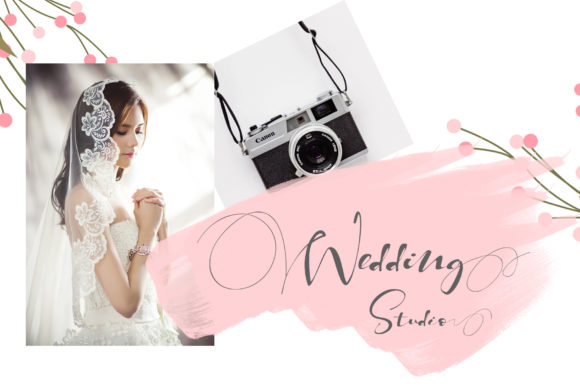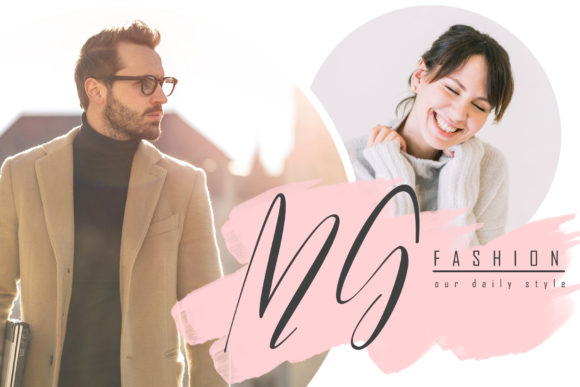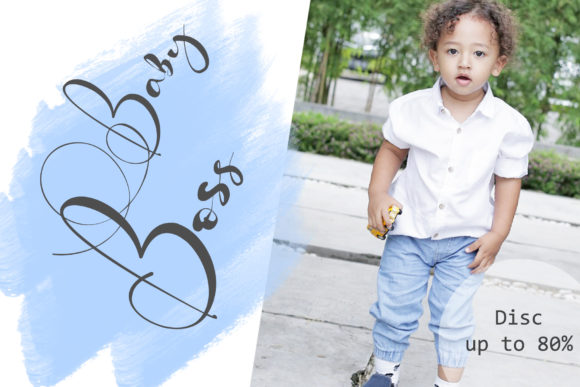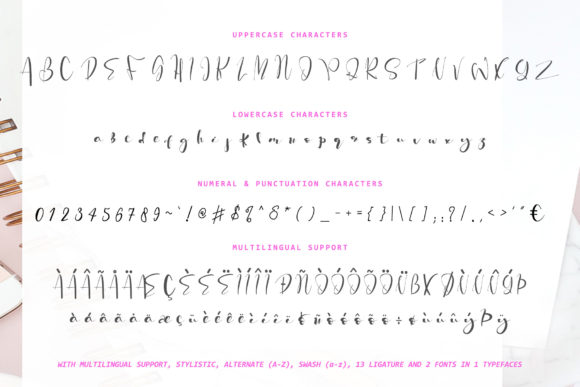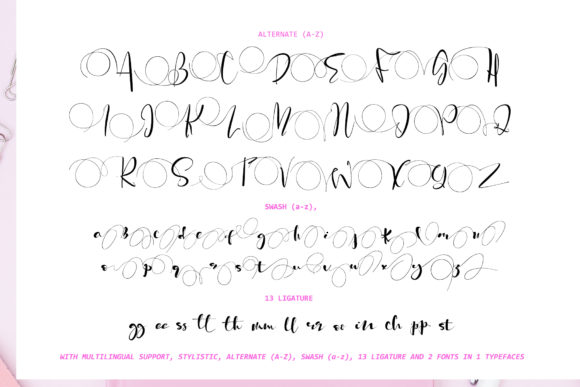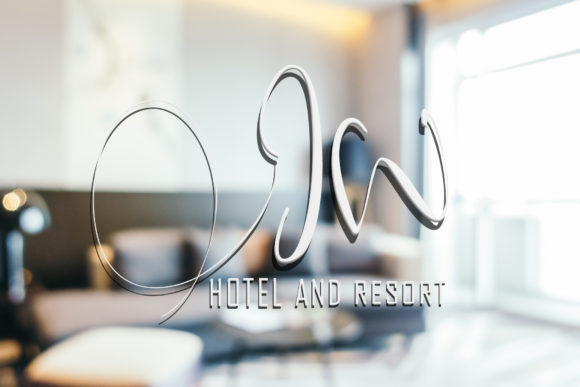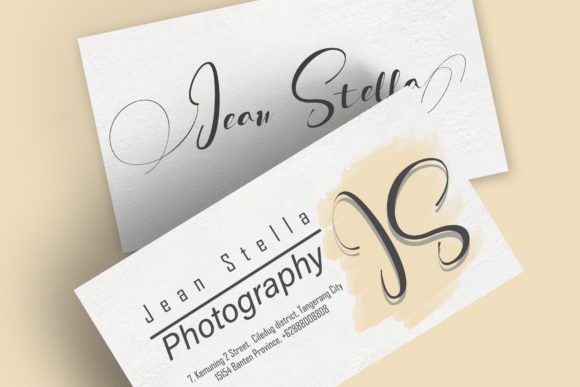
Peach Queen Font
About Peach Queen Font
Peach Queen is a fabulously fun, yet beautiful script font with tons of energy. It allows you to create elegant, hand-made typography in an instant and will add a touch of authenticity to any design project.